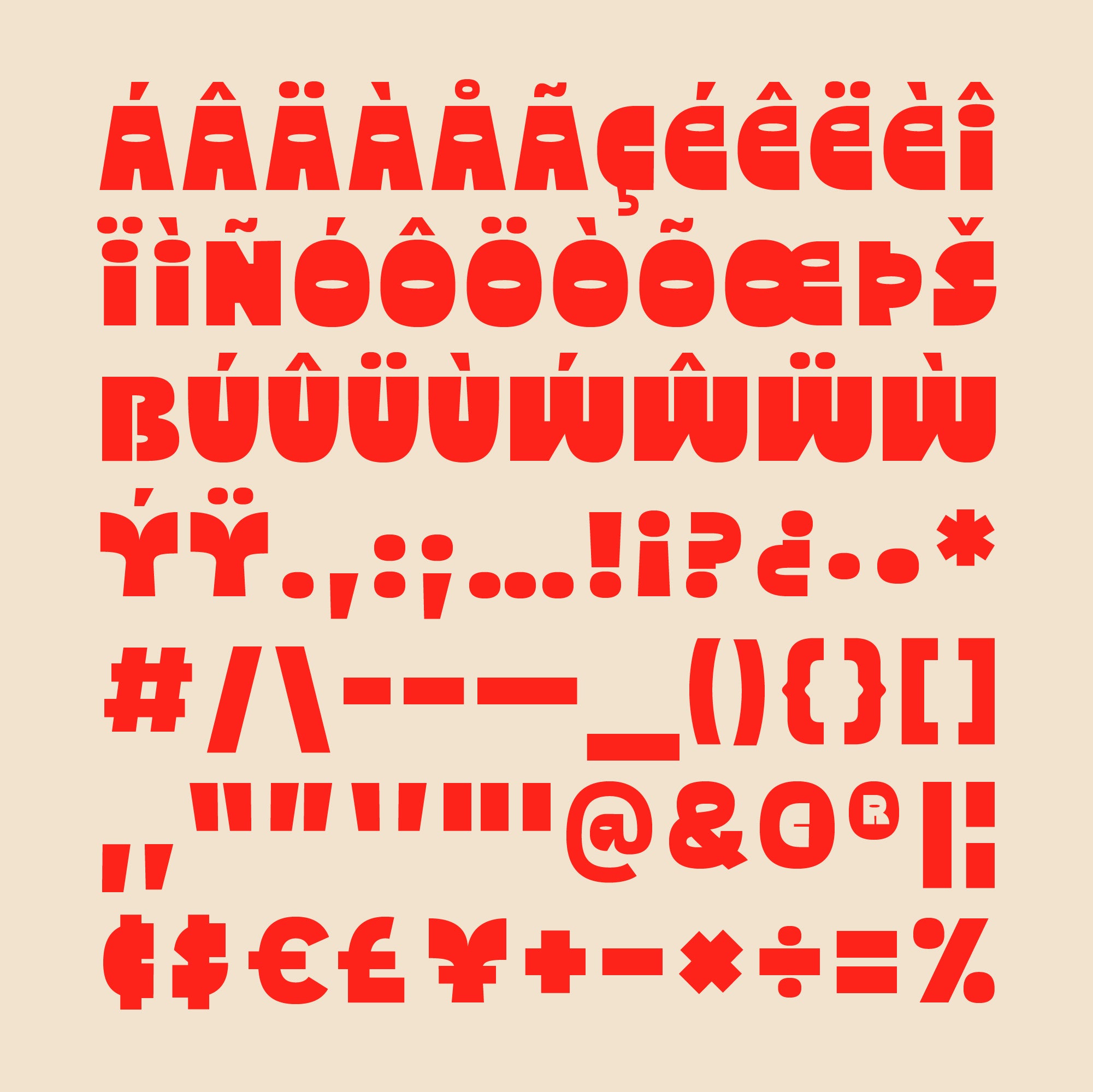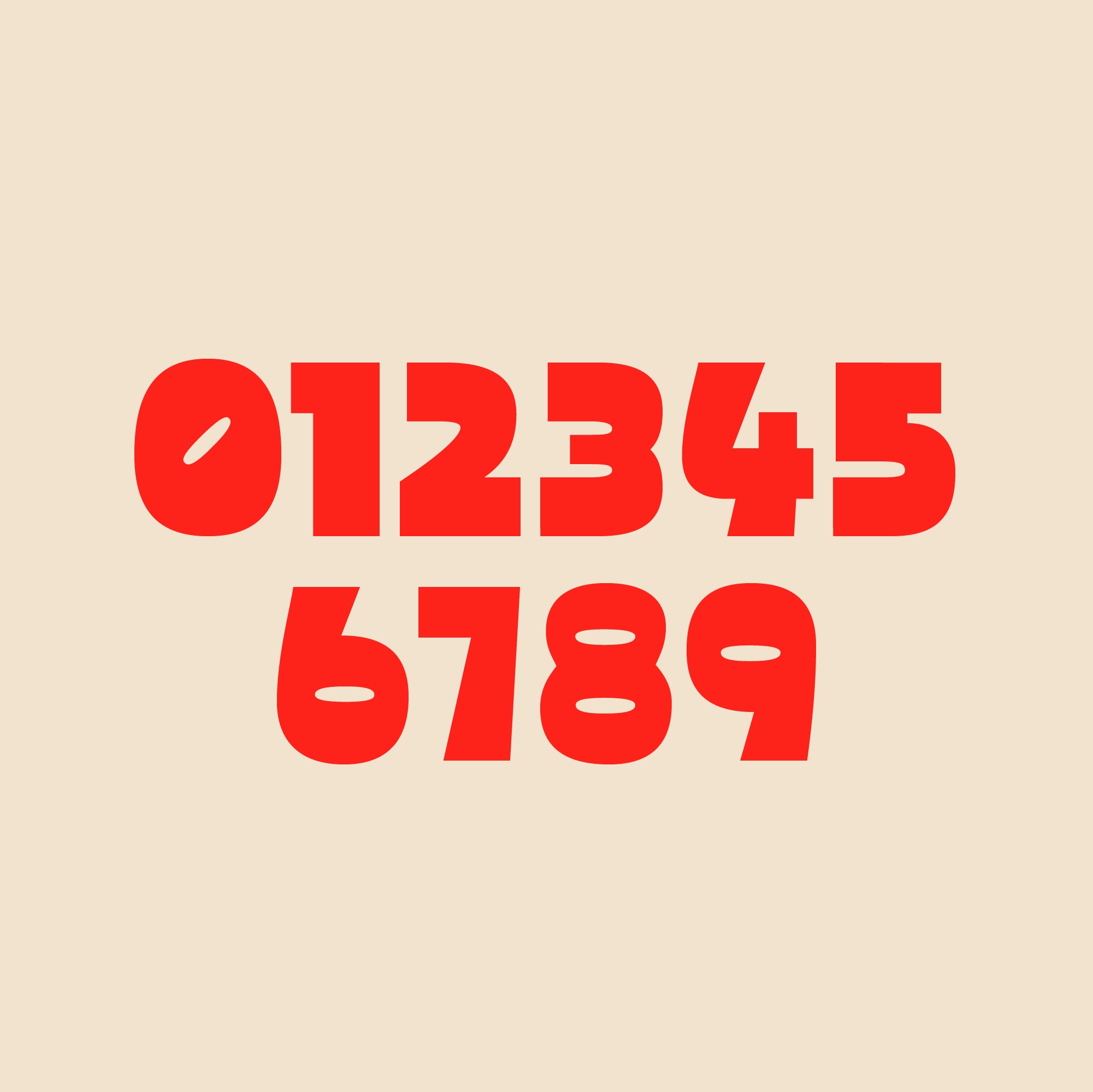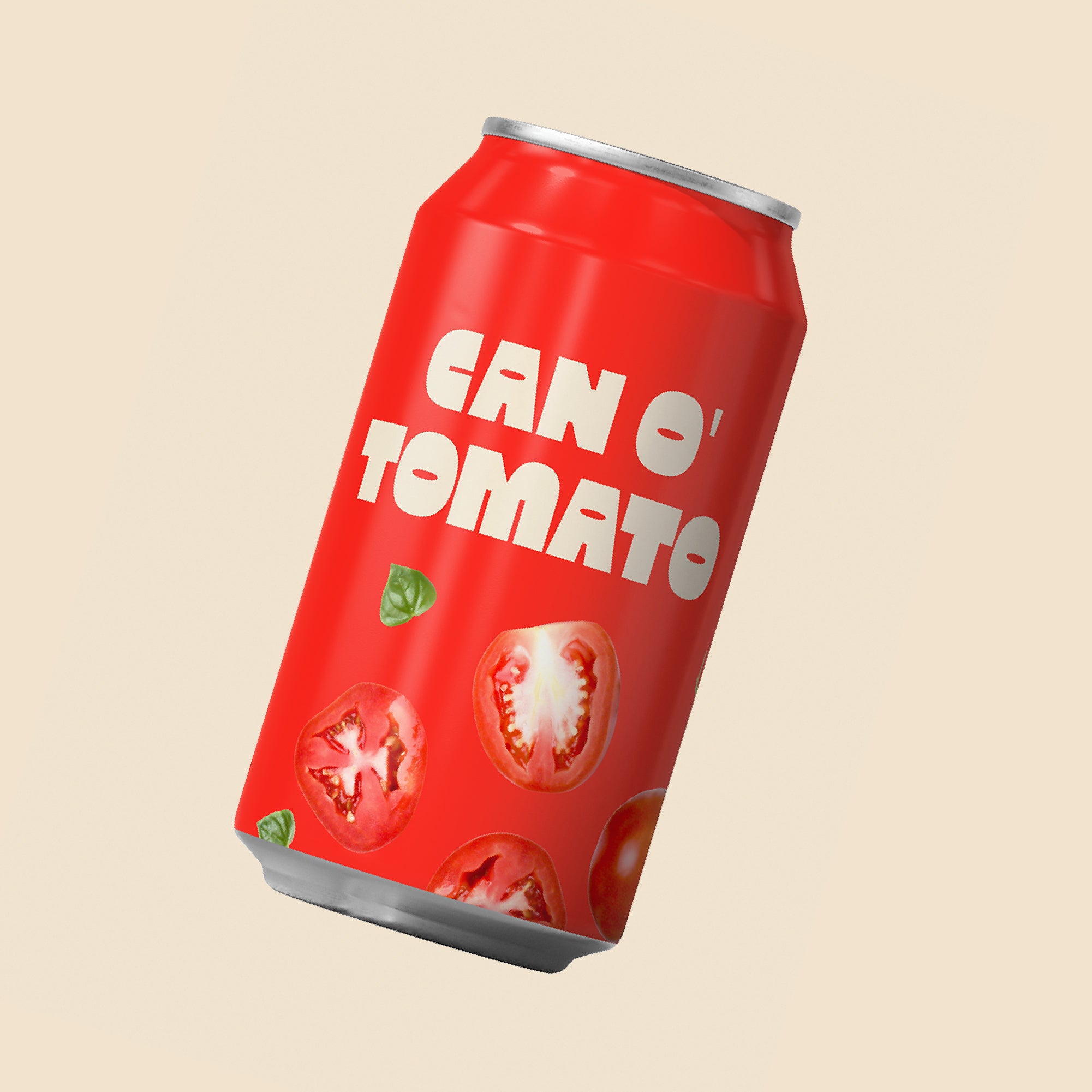
Peculiar Sans - Chunky Display Font
A chunky, uppercase sans serif display font with a playful edge.
This font is designed to feel bold, friendly, and slightly quirky — perfect for when you want to make a strong impact! It works especially well for packaging, posters, social graphics, headlines, logos and branding that needs personality but still feels considered.
• Uppercase display font
• Chunky, bold sans serif style
• Latin language support
• Professionally kerned & spaced
Peculiar Sans is a chunky, uppercase sans serif display font that features a bold and playful design. It includes Latin language support, is professionally kerned and spaced, and is available in OTF, TTF, and WOFF2 file formats.